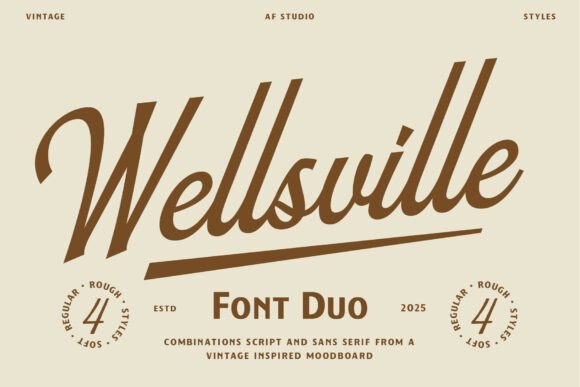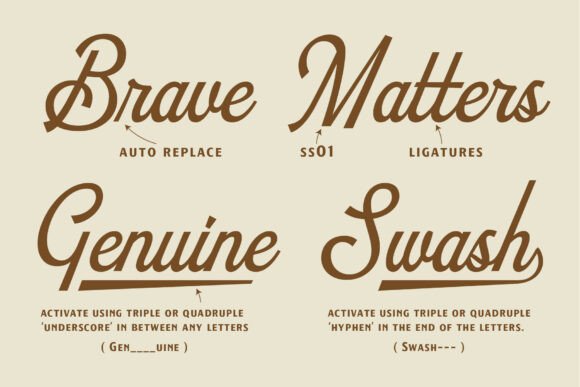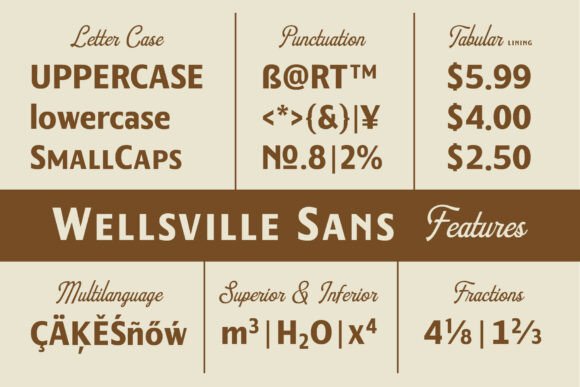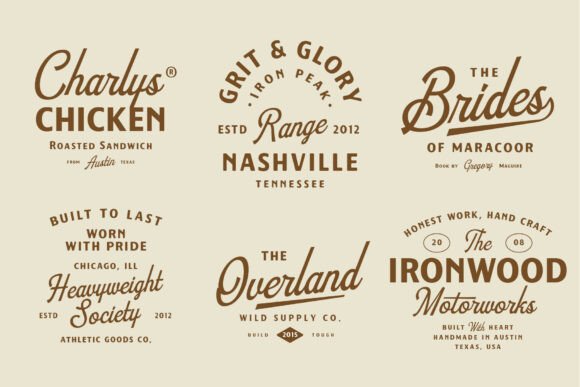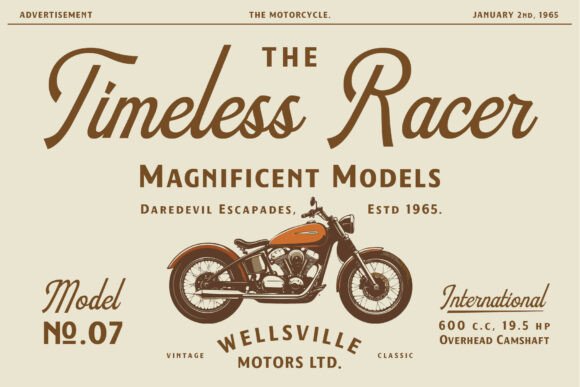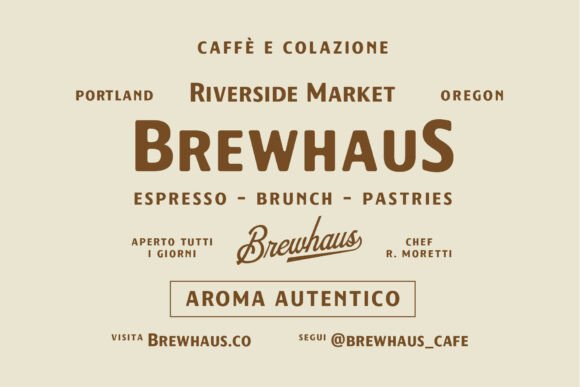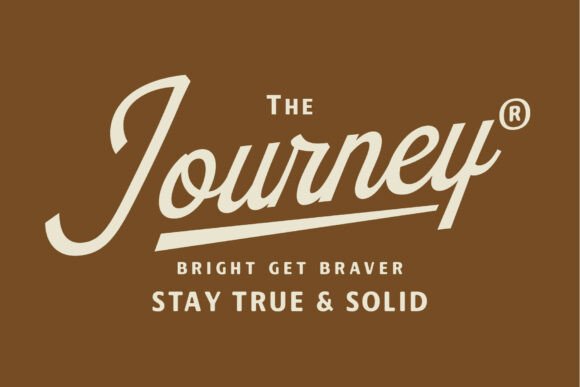
Wellsville Duo Font
Step back into the golden age of advertising with Wellsville Duo, a beautifully crafted vintage script and sans-serif font duo that exudes a timeless, mid-century charm.
The featured script is a smooth, flowing typeface characterized by its elegant slant, classic copperplate curves, and consistent, warm weight. Its sophisticated pairing with the included sans-serif (not pictured, but implied by ‘Font Duo’) offers perfect design harmony and versatility for large-scale projects.
Offered in multiple styles (Regular, Rough, Soft), this duo is built for comprehensive branding. The Wellsville Duo is perfectly suited for classic logo design, product packaging (especially food and beverage), vintage posters, event invitations, and any project aiming for an authentic, Americana-inspired aesthetic.
The Wellsville Duo font instantly provides a sense of established quality and delightful nostalgia, making your brand feel familiar and trustworthy.